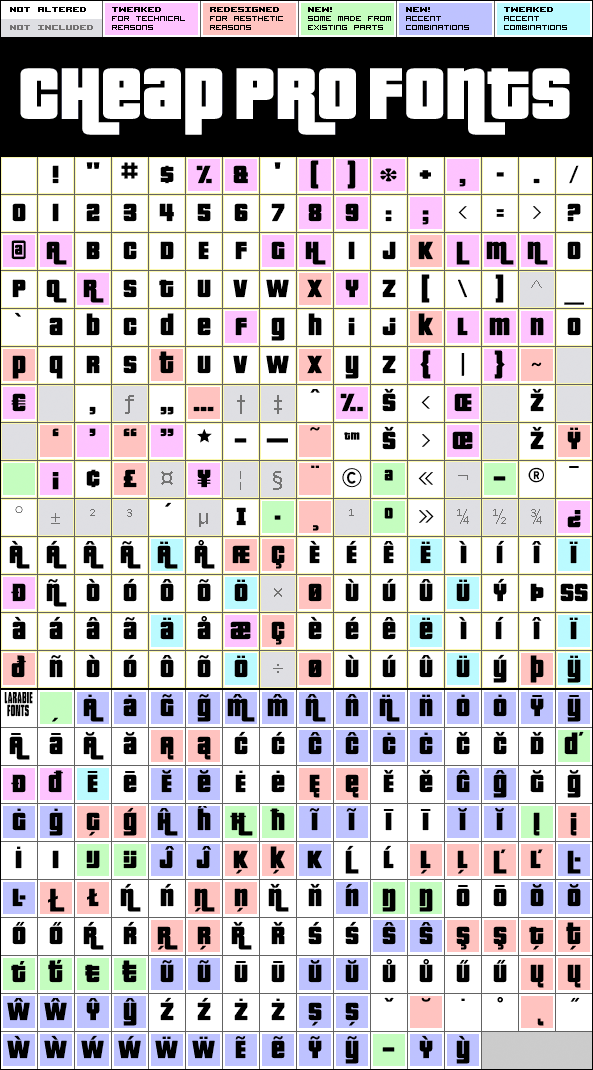
Pricedown Pro
Pricedown Pro by Ray Larabie
356 glyphs!
(279 in original)
41 class kernpairs
= 4442 kerning pairs
(26 in original)
Description:
A very black and compact font made famous by the Grand Theft Auto games. Now available for setting text properly in many languages (the original contains quite a few diacritic glyphs, but their design was often less than perfect ;)
Ray Larabie says: «Based on a late-Sixties font called “Pinto Flare”; famous for its use in the titles for the TV program “The Price is Right”. The 2003 version added alternate characters with/without “tails”. »
Pricedown Pro is a professionally reworked font that contains an extended character set for setting text in 65 languages requiring more than the basic A-Z!